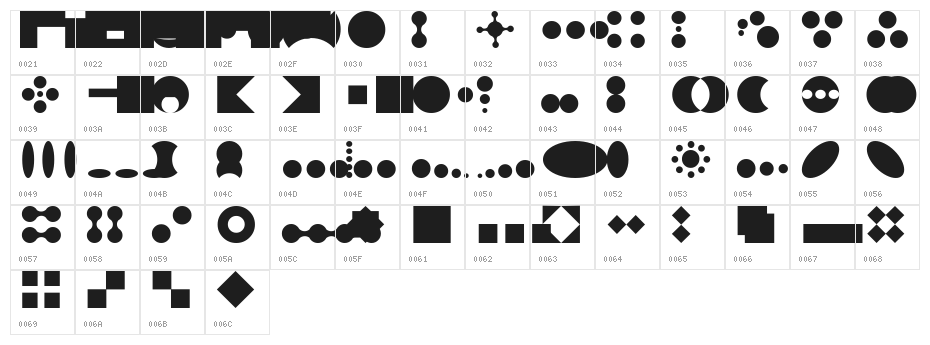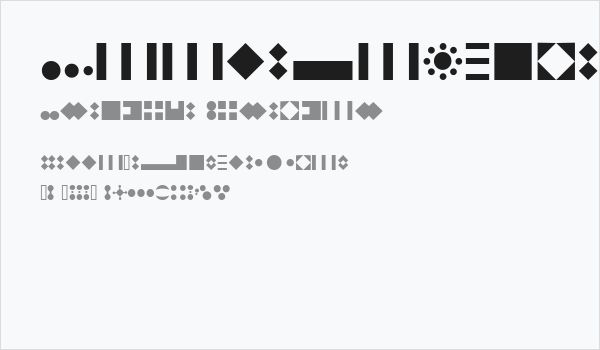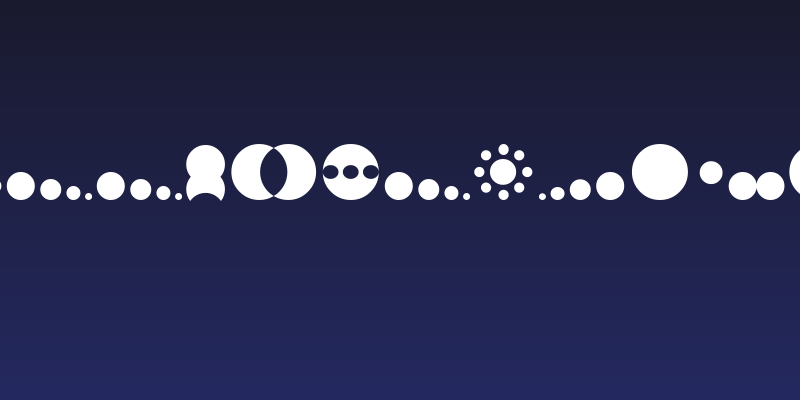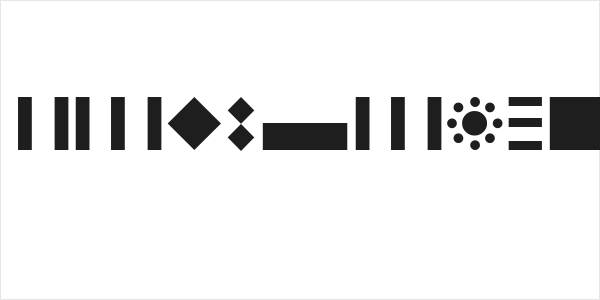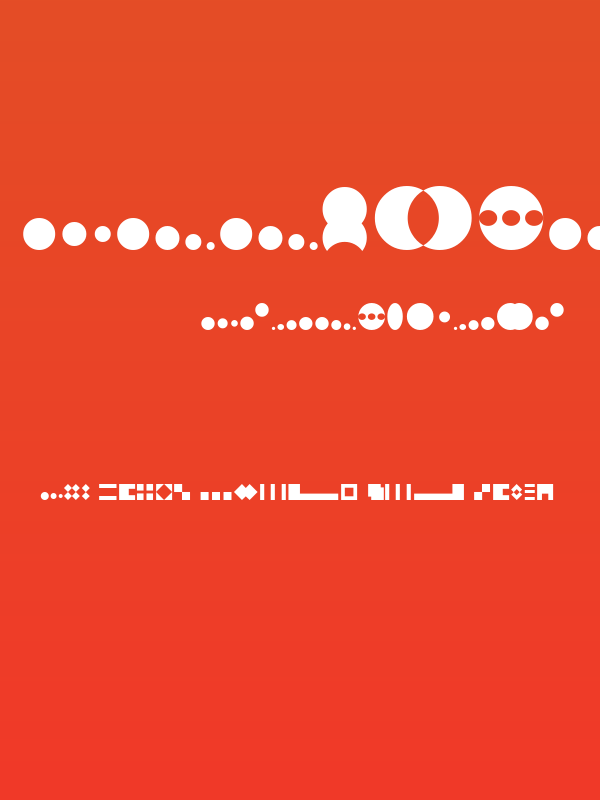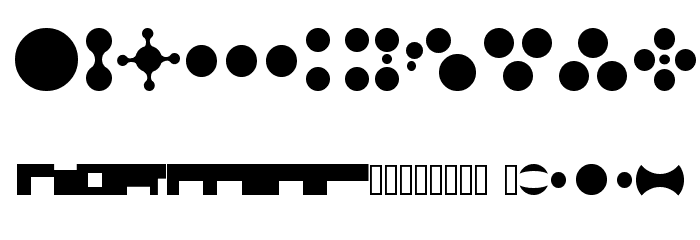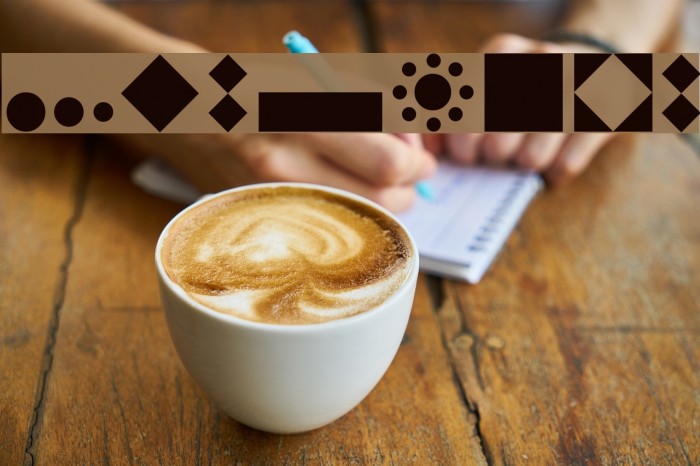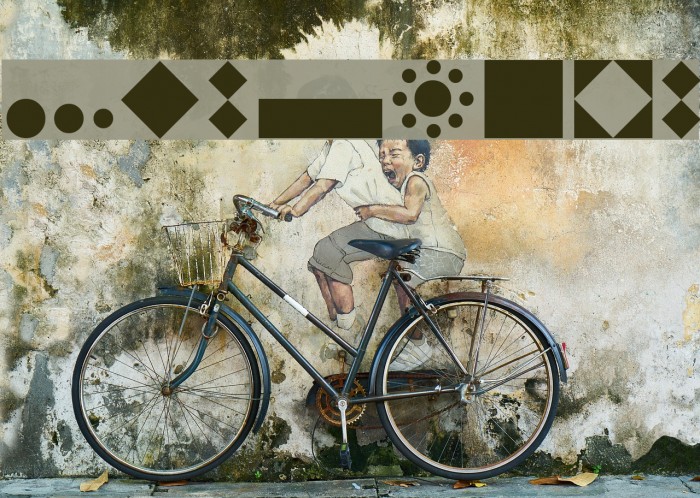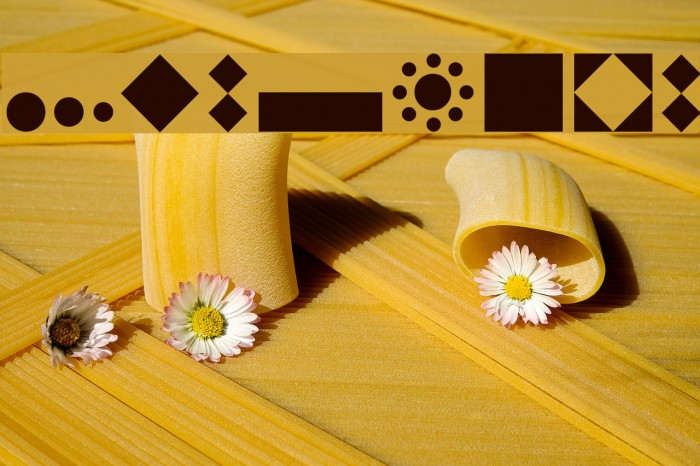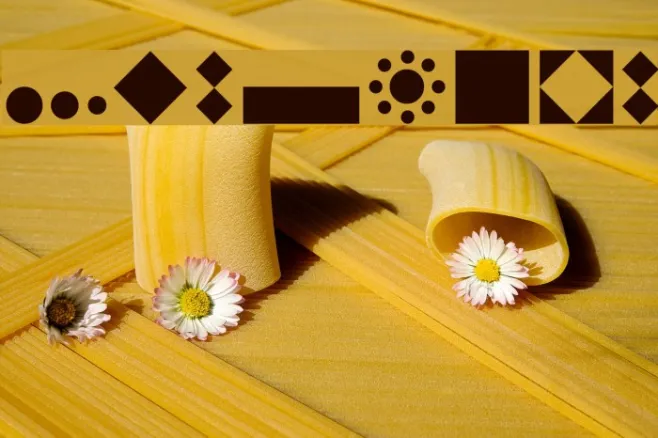
ToolegoSpace Font
ToolegoSpace Description
This font features a highly decorative and abstract design, characterized by its use of geometric shapes and patterns. Each character is composed of circles, dots, and lines, creating a unique and artistic appearance. The font lacks traditional letterforms, instead opting for a more symbolic representation. The overall design is bold and eye-catching, making it suitable for creative and unconventional projects. Its abstract nature may challenge readability, but it excels in visual impact and artistic expression.
| Use Case | Logos, Posters, Artistic Designs |
| Proposed Projects | Ideal for artistic projects, abstract designs, creative posters, and unique branding materials. |